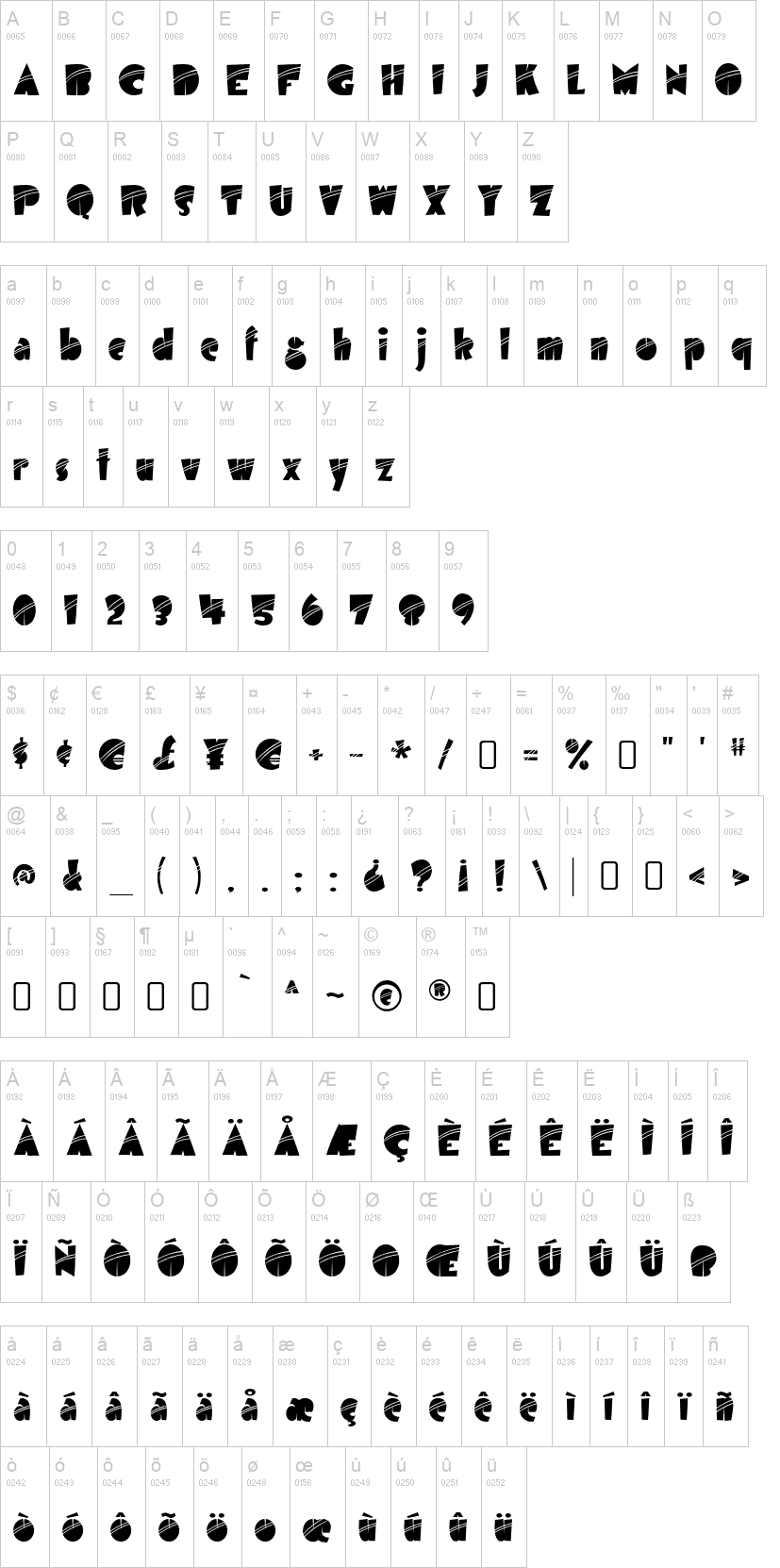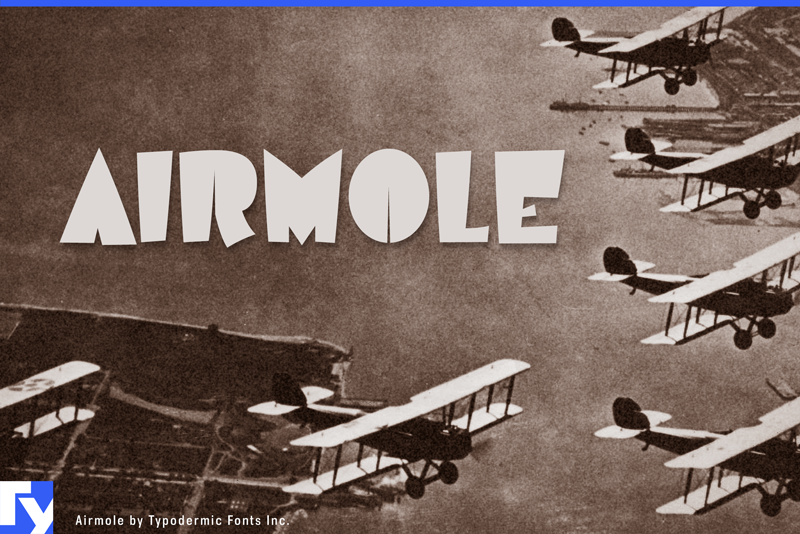
airmole antique.otfairmole shaded.otfNote of the authorAirmole was inspired by a hand lettering manual from the early twentieth century. Instead of holes, narrow slits are used. Airmole is available in normal, striped, shaded, and antique patterns. Most Latin-based European, Greek, and some Cyrillic-based writing systems are supported, including the following languages. Afaan Oromo, Afar, Afrikaans, Albanian, Alsatian, Aromanian, Aymara, Bashkir (Latin), Basque, Belarusian (Latin), Bemba, Bikol, Bosnian, Breton, Bulgarian, Cape Verdean, Creole, Catalan, Cebuano, Chamorro, Chavacano, Chichewa, Crimean Tatar (Latin), Croatian, Czech, Danish, Dawan, Dholuo, Dutch, English, Estonian, Faroese, Fijian, Filipino, Finnish, French, Frisian, Friulian, Gagauz (Latin), Galician, Ganda, Genoese, German, Greek, Greenlandic, Guadeloupean Creole, Haitian Creole, Hawaiian, Hiligaynon, Hungarian, Icelandic, Ilocano, Indonesian, Irish, Italian, Jamaican, Kaqchikel, Karakalpak (Latin), Kashubian, Kikongo, Kinyarwanda, Kirundi, Komi-Permyak, Kurdish (Latin), Latvian, Lithuanian, Lombard, Low Saxon, Luxembourgish, Maasai, Macedonian, Makhuwa, Malay, Maltese, Māori, Moldovan, Montenegrin, Ndebele, Neapolitan, Norwegian, Novial, Occitan, Ossetian (Latin), Papiamento, Piedmontese, Polish, Portuguese, Quechua, Rarotongan, Romanian, Romansh, Russian, Sami, Sango, Saramaccan, Sardinian, Scottish Gaelic, Serbian, Serbian (Latin), Shona, Sicilian, Silesian, Slovak, Slovenian, Somali, Sorbian, Sotho, Spanish, Swahili, Swazi, Swedish, Tagalog, Tahitian, Tetum, Tongan, Tshiluba, Tsonga, Tswana, Tumbuka, Turkish, Turkmen (Latin), Tuvaluan, Uzbek (Latin), Ukrainian, Venetian, Vepsian, Võro, Walloon, Waray-Waray, Wayuu, Welsh, Wolof, Xhosa, Yapese, Zapotec Zulu and Zuni.